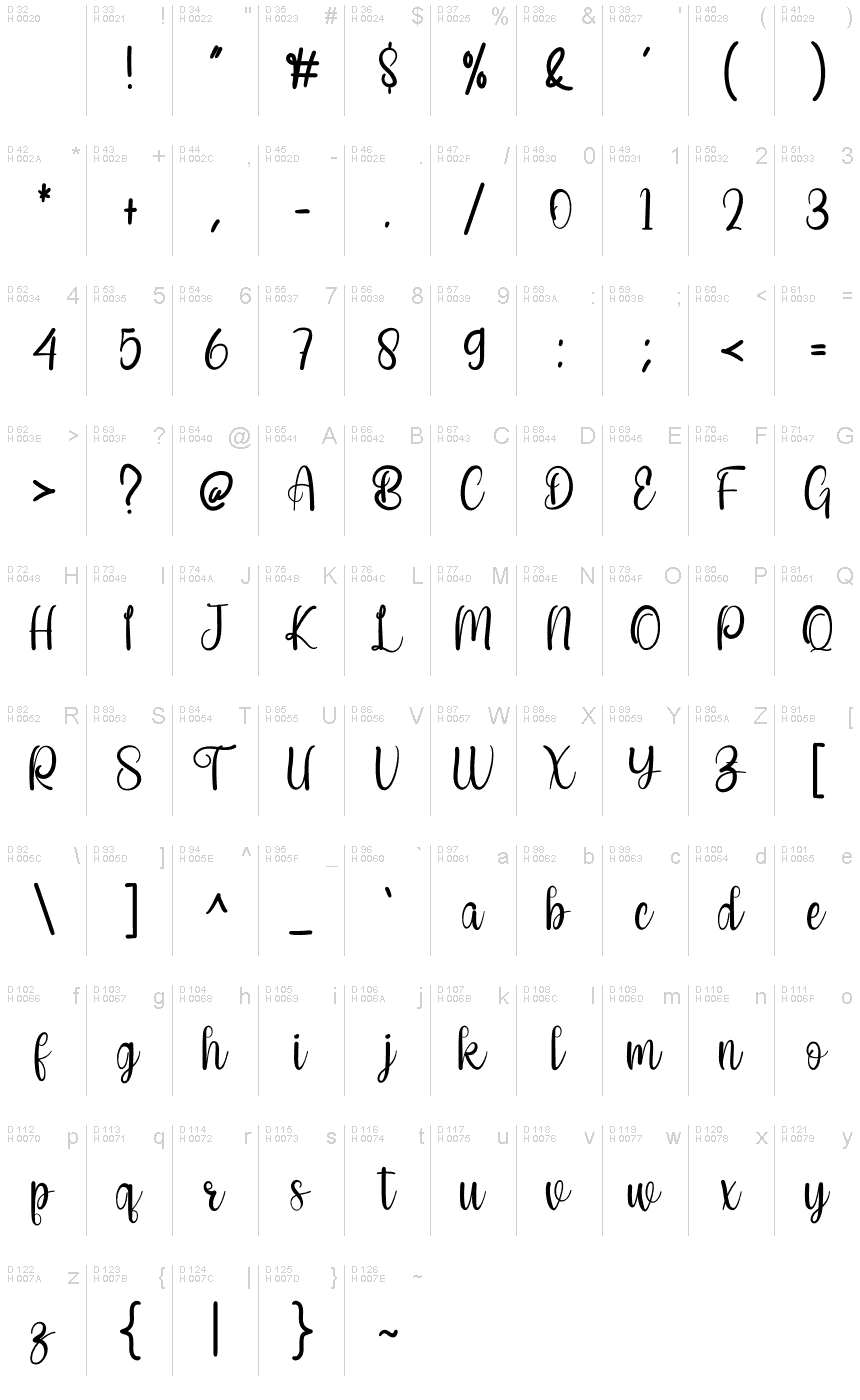
Outside
Outside, a captivating handwritten font by designer 39, brings a touch of whimsy and elegance to your projects. With its semi-light weight, this font adds a delicate and airy feel to any design.
Perfect for wedding invitations, greeting cards, and feminine branding projects, Outside exudes charm and uniqueness. Its fluid strokes and organic shapes create a sense of authenticity that is sure to captivate your audience. Whether you're designing for fashion or lifestyle blogs or creating stunning social media graphics, Outside will add a distinctive flair to your work.